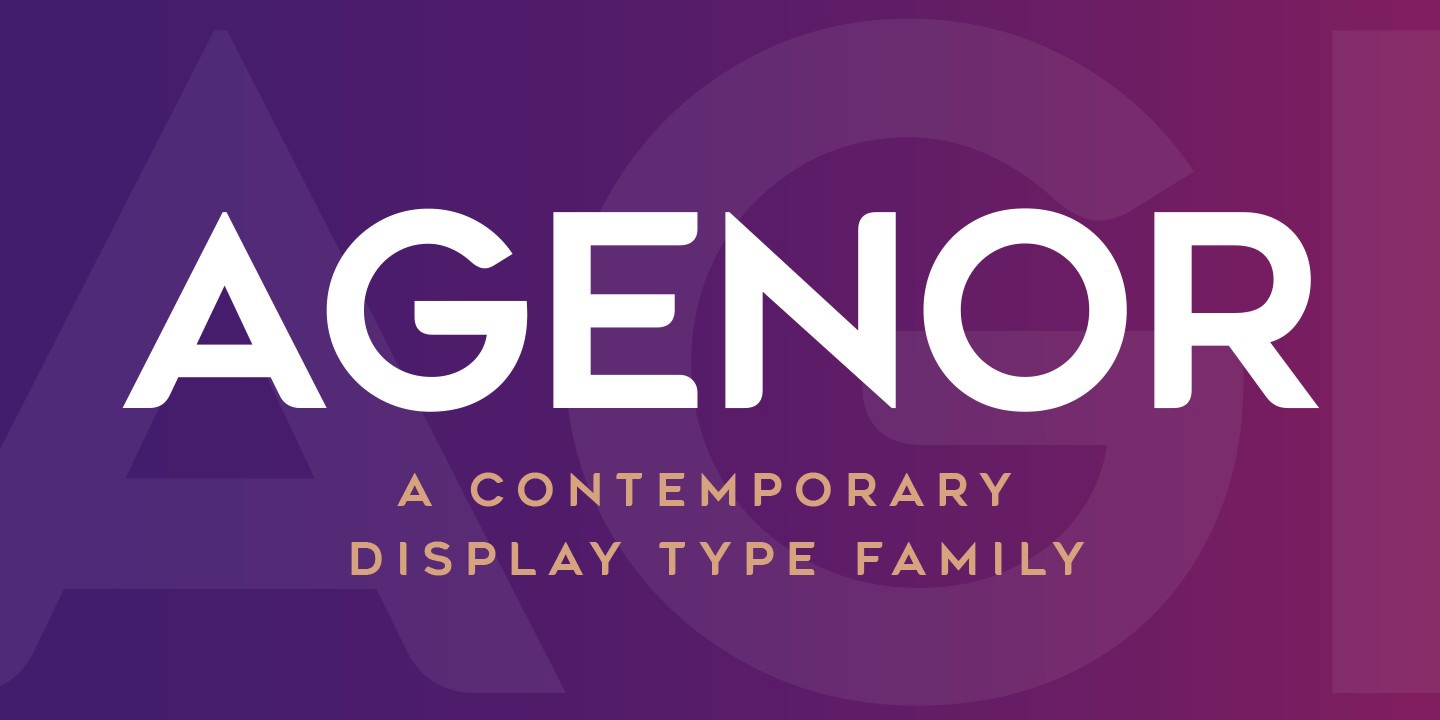
Agenor Font
Agenor Font is perfect for classical education institutions, mythology-themed entertainment venues, ancient history museum exhibitions, Greek restaurant branding, archaeological society materials, classical literature publishing, philosophy conference graphics, heritage cultural organizations, traditional academic presentations, and scholarly publication designs. This distinguished typeface excels in applications where classical heritage, scholarly authority, and ancient wisdom are fundamental brand characteristics.
What makes Agenor Font exciting is its masterful evocation of ancient Greek and Roman typographic traditions through carefully crafted letterforms that honor classical proportions while maintaining contemporary functionality. The font features timeless character construction with subtle references to carved stone inscriptions and classical manuscript traditions that immediately convey scholarly credibility and cultural sophistication. Its dignified presence makes it perfect for organizations that celebrate intellectual heritage and the enduring wisdom of classical civilizations.
The Agenor Font family typically includes Regular and Bold weights, often accompanied by italic variations that enhance its academic versatility and classical appeal. Many versions feature small caps, old-style numerals, and extensive ligatures that reflect traditional European scholarly typography. Some collections include Greek alphabet characters, classical symbols, and ornamental elements inspired by ancient architectural details that provide comprehensive solutions for classical studies and cultural heritage applications.
Whether you're developing brand identities for educational institutions, creating materials for cultural organizations, or designing publications that require classical authority and scholarly gravitas, Agenor Font Free Download delivers the intellectual distinction that academic and cultural organizations demand. Its authoritative character makes it ideal for institutions that have earned respect through dedication to classical learning and cultural preservation. The font's ability to convey both ancient wisdom and contemporary relevance makes it particularly valuable for universities, museums, and cultural foundations seeking to maintain their connection to classical traditions while engaging modern audiences who appreciate intellectual depth, cultural heritage, and the timeless value of classical education in contemporary society.